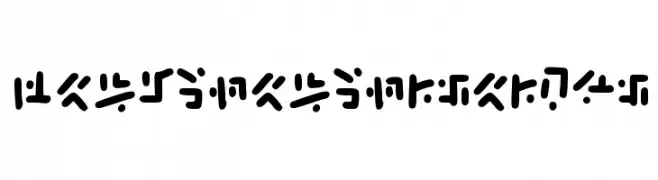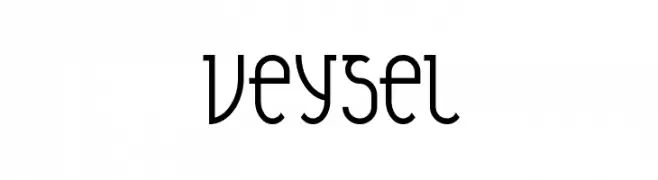
( Fonts by Harold Lohner - www.haroldsfonts.com )
A bold, decorative font with a filmstrip border, ideal for vintage or cinematic themes.
( Fonts by Harold Lohner - www.haroldsfonts.com )
A bold, cinematic font with a vintage film reel aesthetic.
( James Morgan )
A sleek, modern font with thin, elongated lines and a geometric structure.
( Fonts by Astigmatic One Eye Typographic Institute - Brian J. Bonislawsky - astigmatic.com )
A bold, modern font with a unique horizontal line pattern for a dynamic look.
( Arlee Draw - arleedraw.tumblr.com/ )
A bold, abstract font with geometric shapes and a modern, artistic style.
( niram.org )
A playful, bold outline font with a hand-drawn appearance.